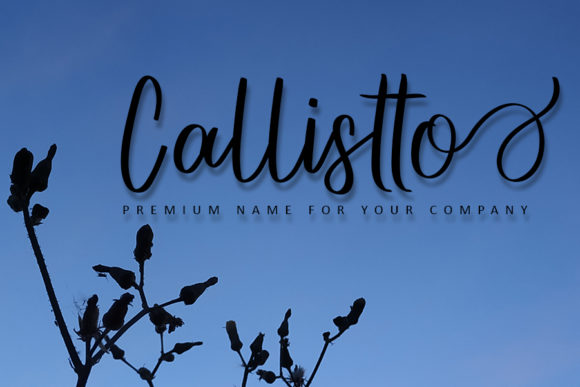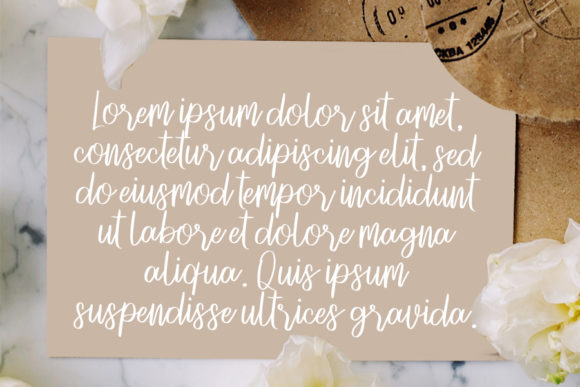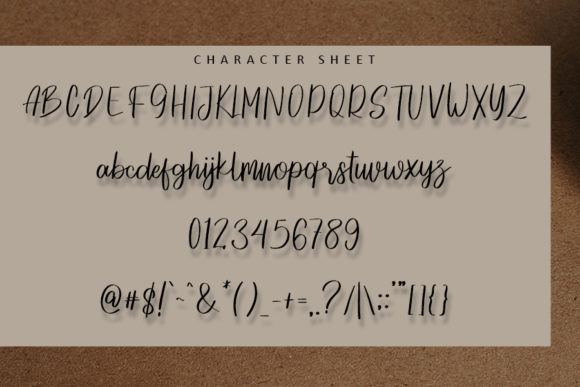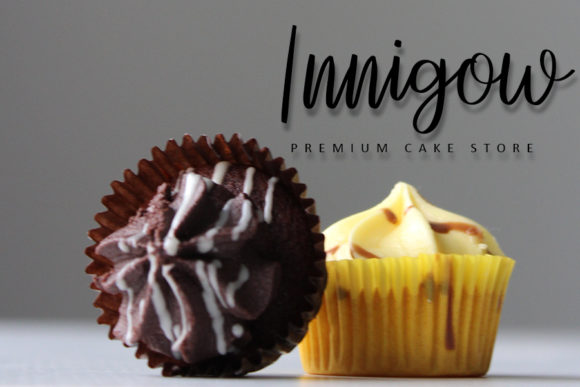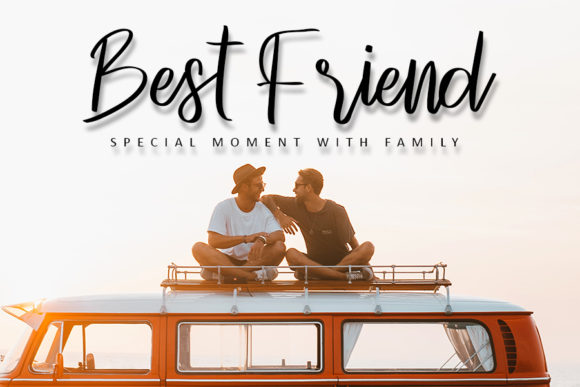
Discover the Timeless Charm of Janakie Font
As designers, we’ve all been there – staring at a blank canvas, trying to conjure up the perfect idea. The blank page can be daunting, but sometimes all it takes is a single spark to ignite our creativity. For me, that spark was a vintage typewriter, its keys worn and weathered, each letter a testament to the stories it had told. It was in that moment that I fell in love with the unique, handwritten feel of fonts like Janakie.
Janakie Font is a classic handwritten font that exudes a sense of nostalgia and charm. Its unique appearance makes it perfect for designers who want to add a touch of personality to their projects. Whether you’re working on a branding campaign, a blog post, or a marketing brochure, Janakie Font is sure to bring a level of sophistication and elegance to your design.
As a valuable addition to any designer’s toolkit, Janakie Font offers a level of versatility and creativity that’s hard to find in more traditional fonts. Its unique characteristics make it perfect for designers who want to stand out from the crowd and create truly memorable designs.
- Unique Characteristics: Janakie Font has a unique, handwritten feel with varying line widths, flourishes, and subtle imperfections that give it a personal and creative touch.
Janakie Font Review
I recently had the chance to work with the Janakie font, and I must say, it’s an interesting choice. Here are my thoughts on what works well and what doesn’t.
- The Janakie font has a unique, modern feel to it. It’s perfect for those who want to add a touch of elegance to their designs.
- The font is highly legible, even at smaller sizes, making it ideal for body text and headings.
- The font supports a wide range of languages, making it a great choice for global brands and projects.
- The Janakie font can feel a bit sterile at times, lacking the personality and character that some designers crave.
- The font’s lines can be a bit too bold at times, making it difficult to use for delicate or intricate designs.
- The font’s italic styles can be a bit inconsistent, making it tricky to use for emphasis or quotes.
Overall, I’d say the Janakie font is a solid choice for those who want a modern, legible font. However, it may not be the best fit for designers who prefer more personality or character in their fonts.
Tips for Getting the Most Out of Janakie Font
Here are a few tips for getting the most out of the Janakie Font:
- Use Janakie Font for headings and titles to add a touch of elegance and sophistication.
- Pair Janakie Font with a sans-serif font for body copy to create a visually appealing contrast.
- Experiment with different font sizes and styles to find the perfect balance for your design.
The Janakie Font is ideal for:
- Choose a bold font style to create a beautiful title for the invitation.
- Combine the Janakie Font with a clean sans-serif font for the body text.
- Use a combination of uppercase and lowercase letters to add visual interest to the title.
- Pair the Janakie Font with a watercolor or hand-painted design element to add a touch of whimsy.
- Use a combination of gold and rose gold foil to create a luxurious and elegant look.
- Choose a bold font style to create a striking title for the logo.
Project Ideas Using Janakie Font
Create a unique and eye-catching wedding invitation using the Janakie Font. This script font is perfect for adding a touch of elegance and romance to your wedding stationery.
Project 2: Quirky Food Blog Logo
Create a playful and memorable logo for your food blog using the Janakie Font. This script font is perfect for adding a touch of personality and whimsy to your brand.